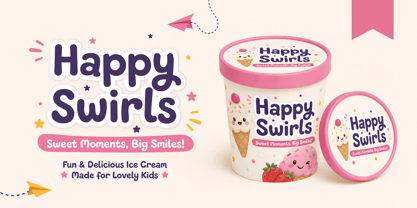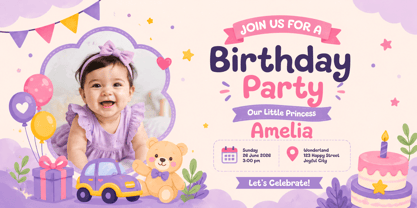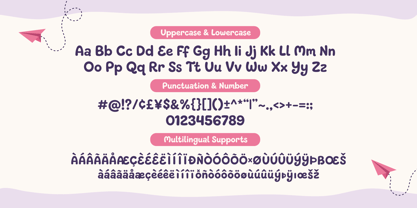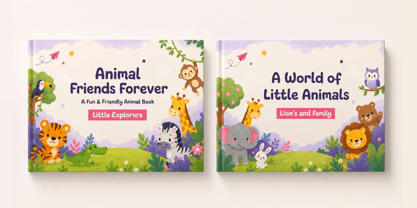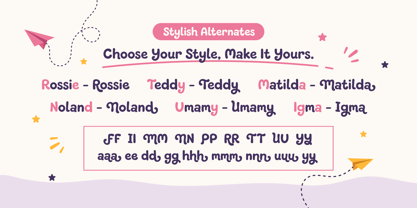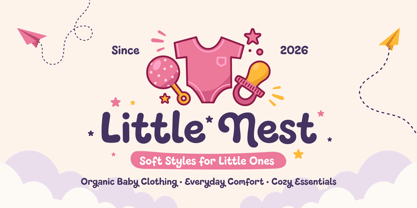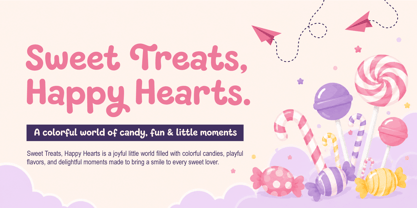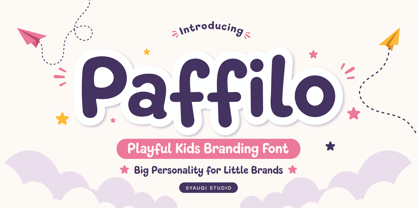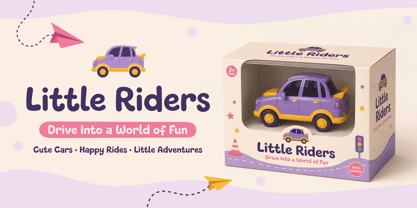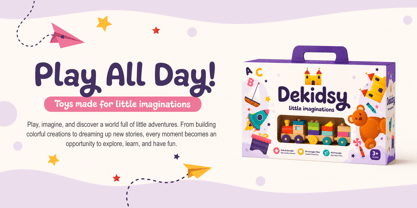
Paffilo
Paffilo — Playful Kids Branding Font
Paffilo is a playful kids display font with a cute, rounded, and friendly personality. Designed with soft curves, chunky shapes, and cheerful letterforms, Paffilo brings a fun and approachable character to every word — making it an excellent choice for brands that want to feel joyful, memorable, and full of personality.
Created especially for kids and family-focused designs, Paffilo works beautifully for playful branding, children's logos, toy brands, baby products, kids clothing, children's books, packaging, stationery, invitations, posters, stickers, and social media designs. Its bold and friendly appearance helps brand names and headlines stand out while keeping the overall look warm, charming, and easygoing.
Paffilo also includes Stylish Alternates, giving you more creative freedom to customize your lettering. Mix and match alternate characters to discover your favorite letterforms and create a unique typographic style that feels truly yours.
Perfect for:
Kids Branding, Baby Brands, Toy Brands, Children's Books, Kids Clothing, Baby Products, Kids Stationery, Packaging, Candy & Food Brands, Stickers, Invitations, Posters, Social Media, Apparel, Product Labels, Creative Branding.
Features:
Uppercase, Lowercase, Numbers & Punctuation, Stylish Alternates, Multilingual Support
Paffilo — Big Personality for Little Brands.